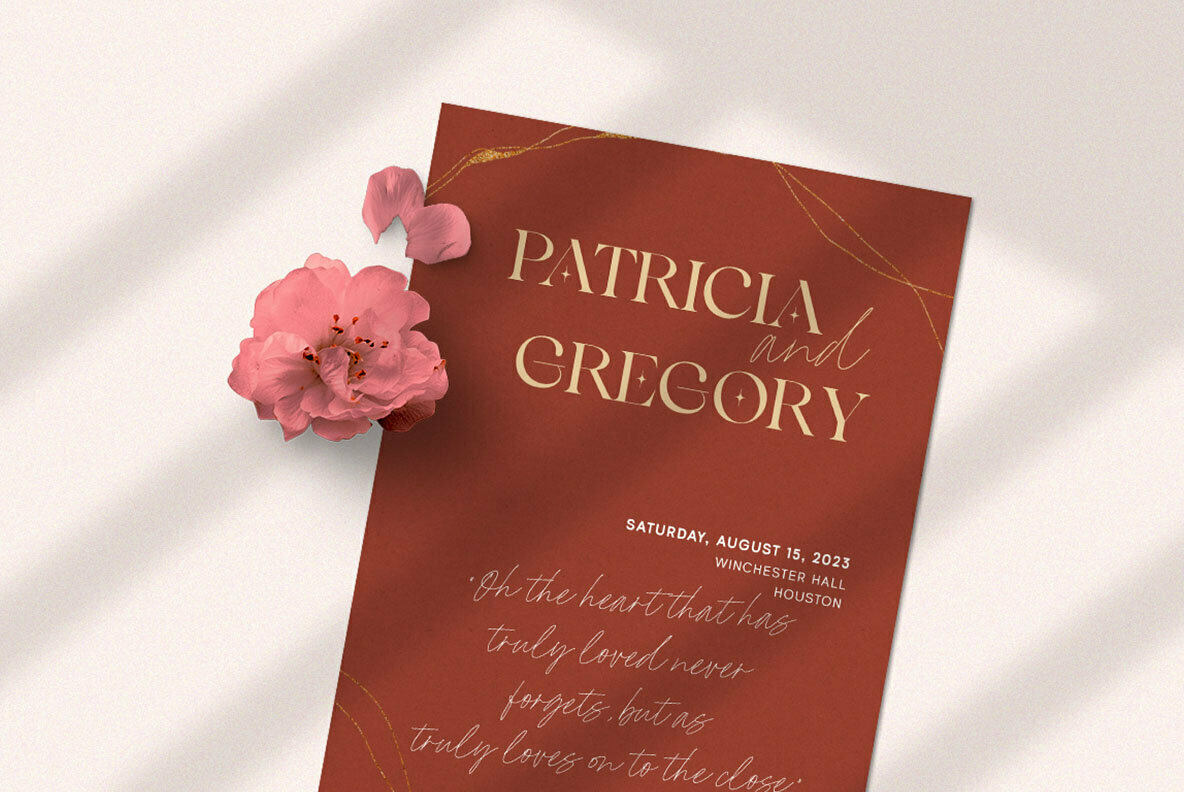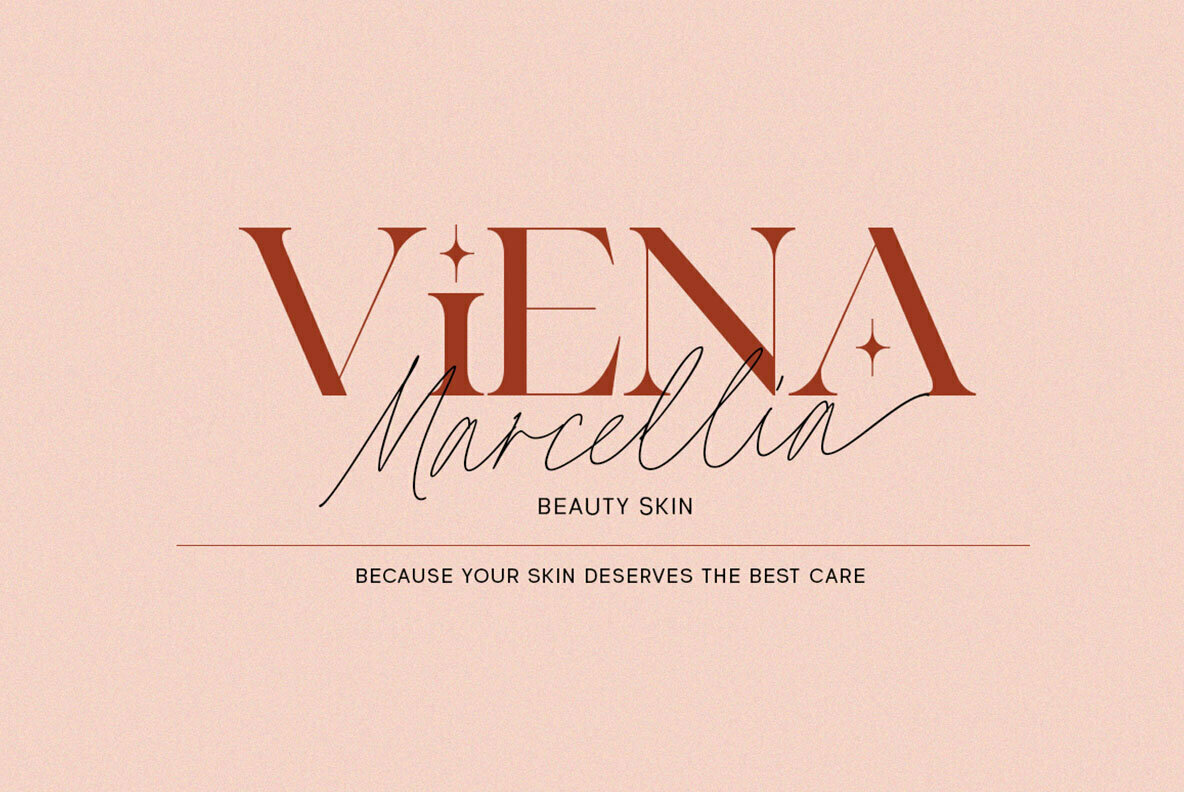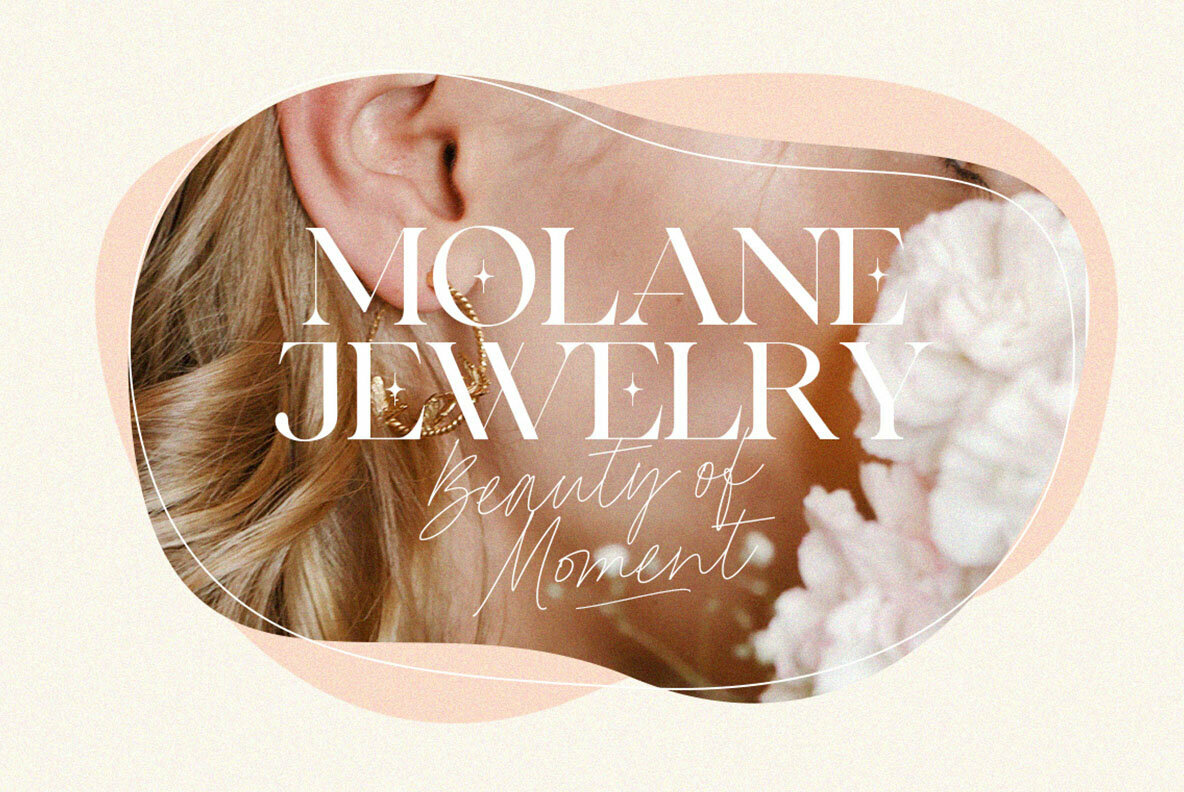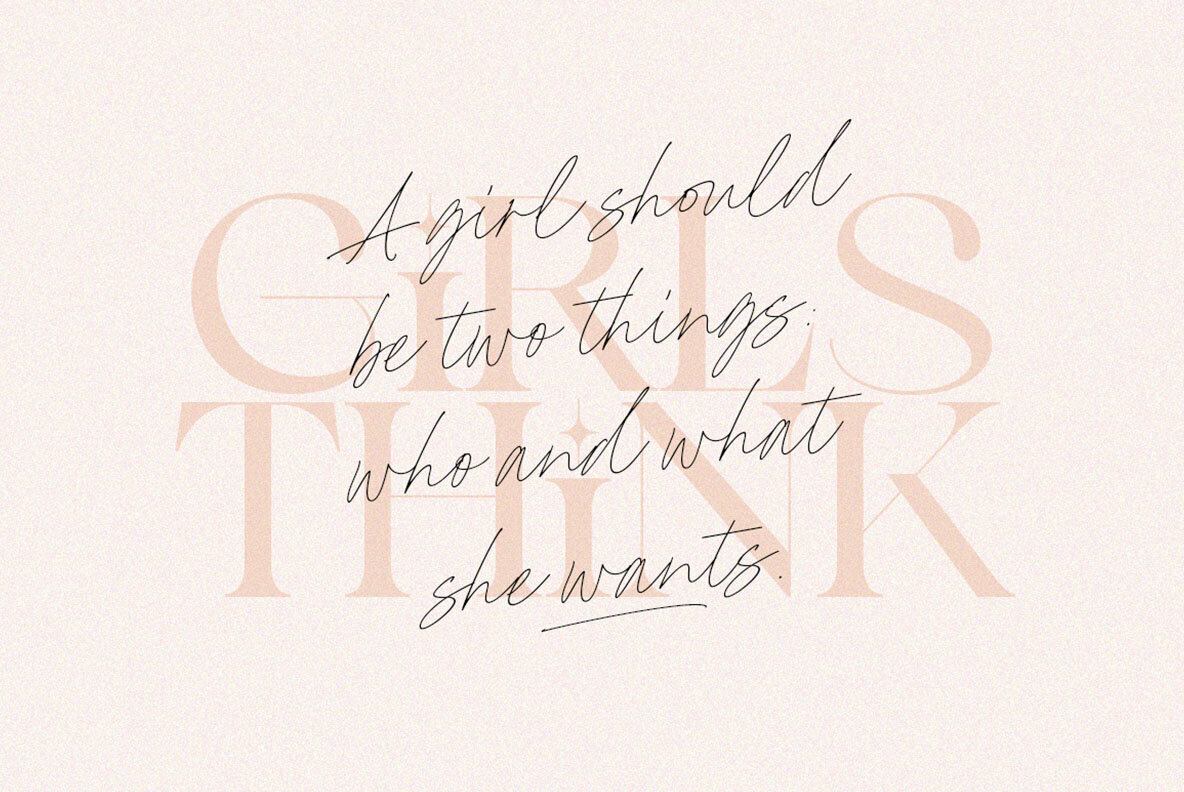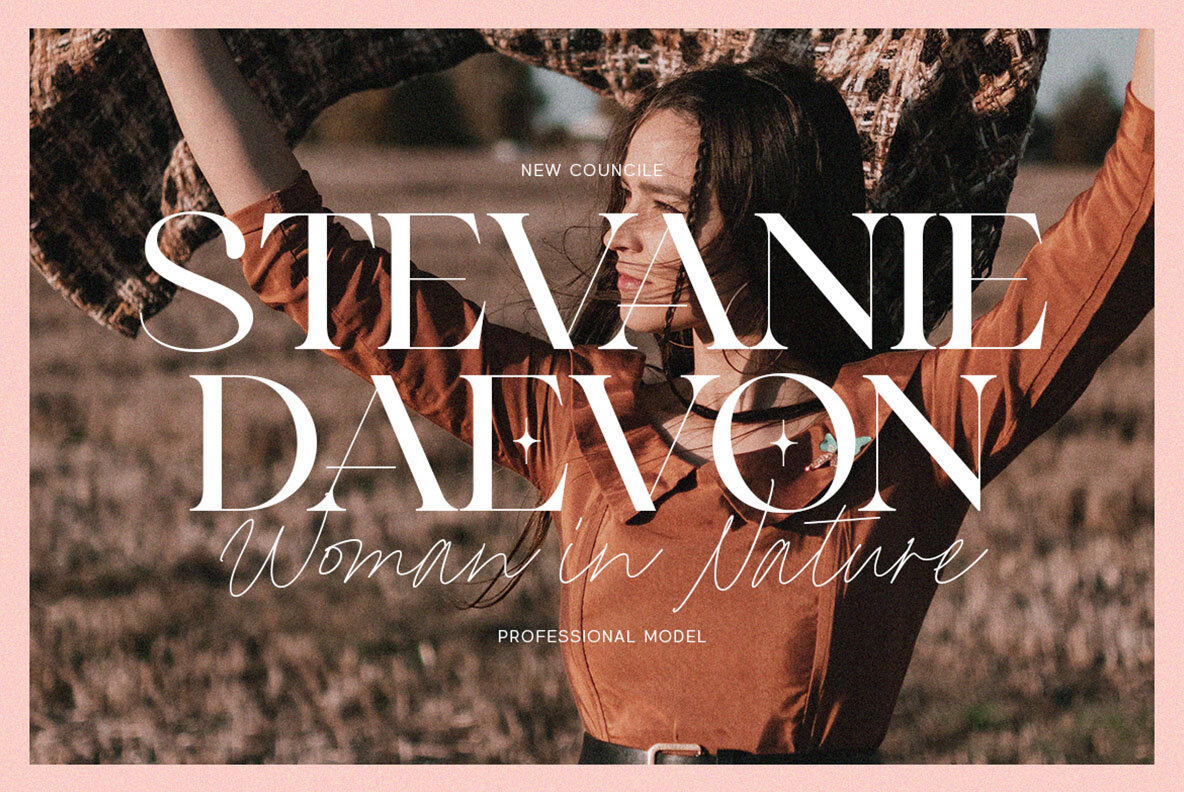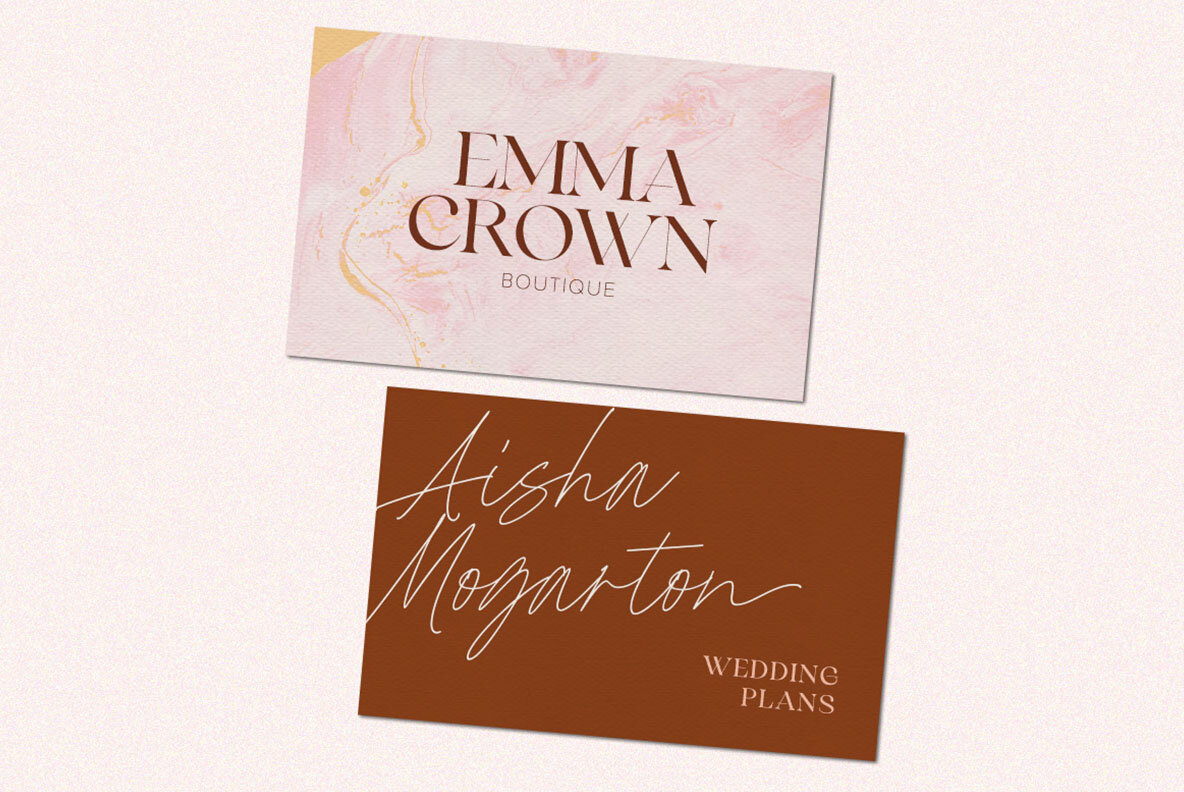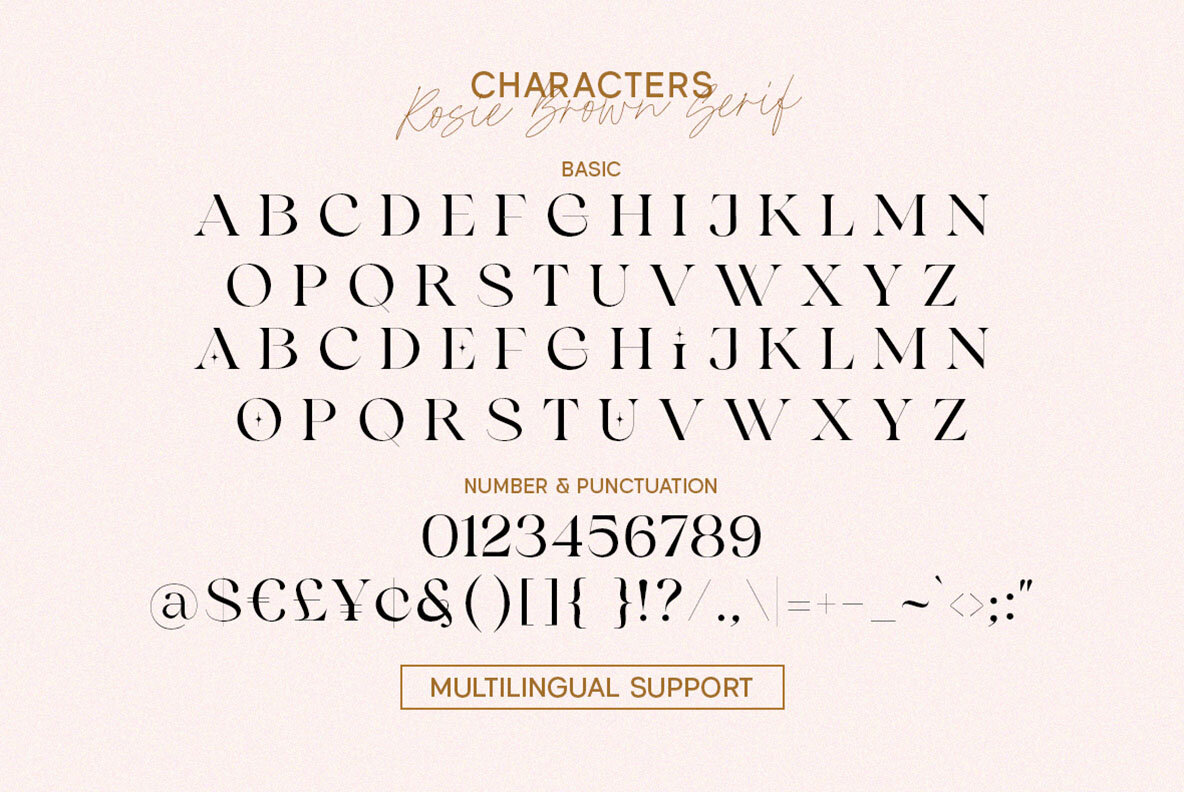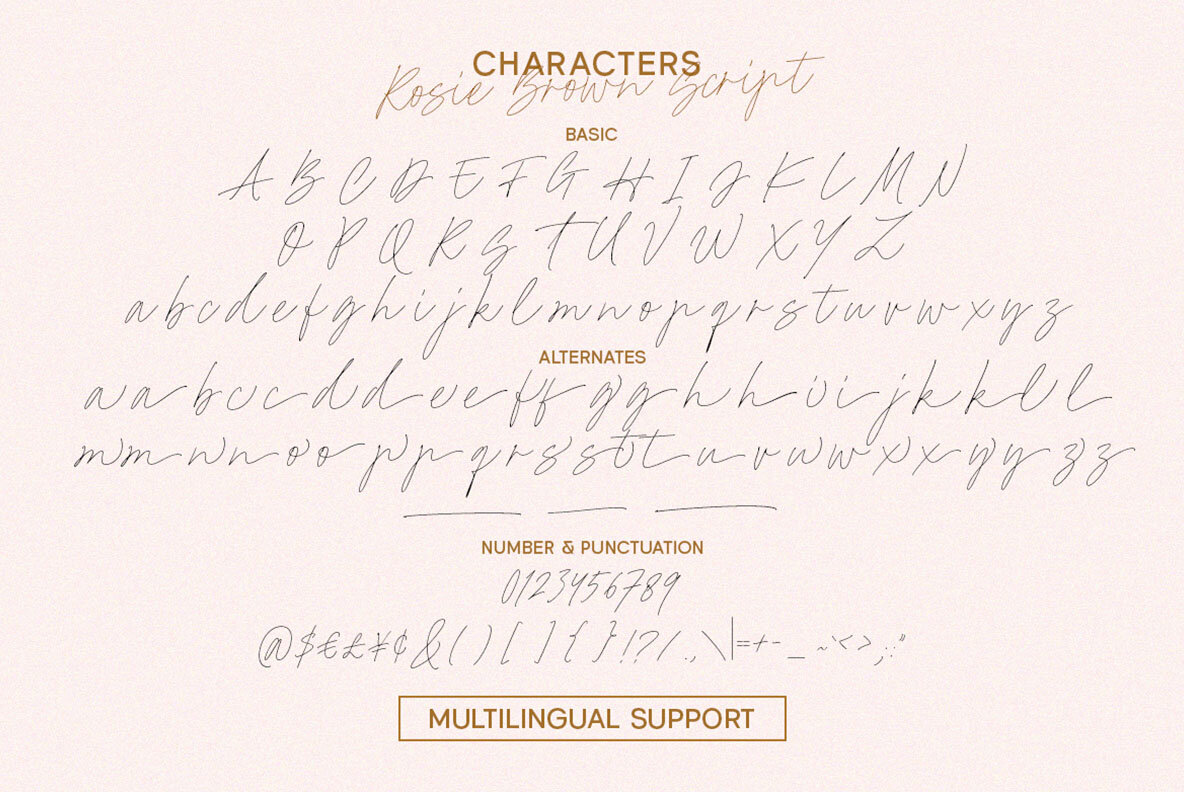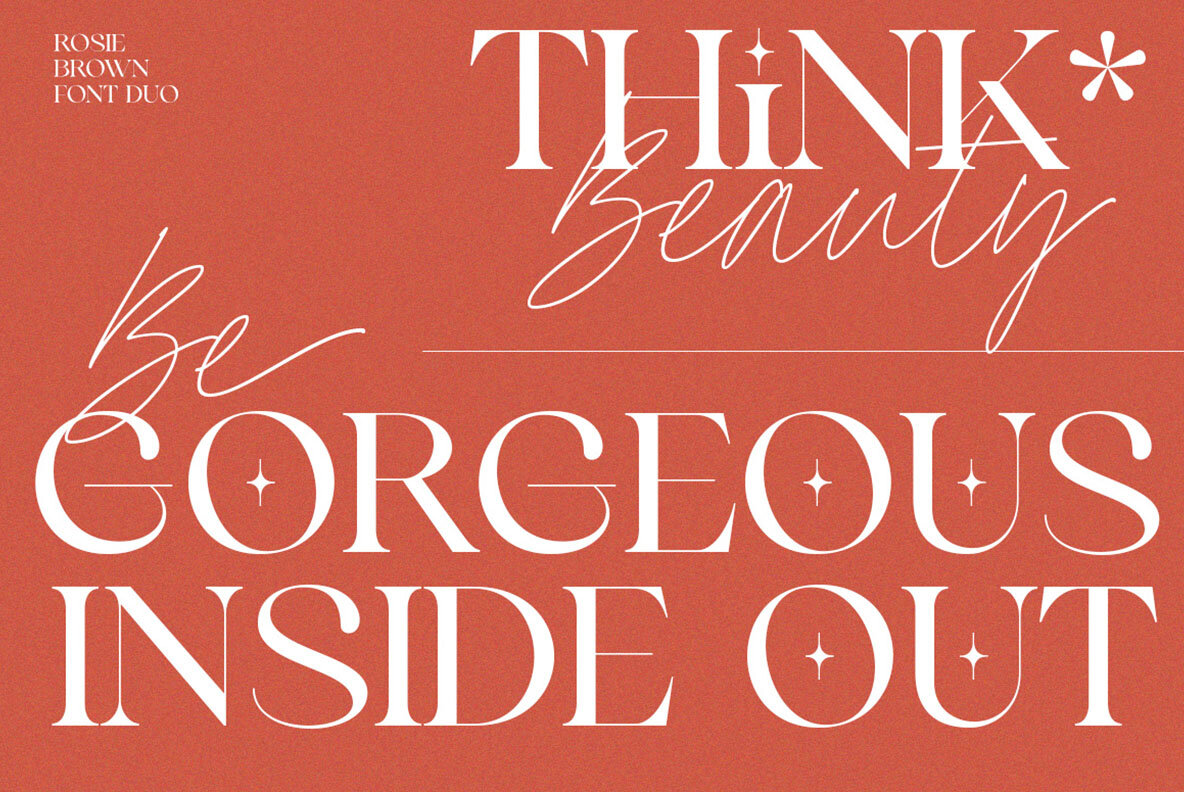
Rosie Brown Font Duo
The perfect font for your next project, Rosie Brown is a confident and creative design that will help you stand out from the rest. It has an elegant serif paired with natural scriptwriting which makes it easy to pair up in any situation whether its logotypes or branding marks!
- 2 fonts (serif and script font)
- uppercase & lowercase
- numbers and punctuation
- multilingual
- alternates & ligatures